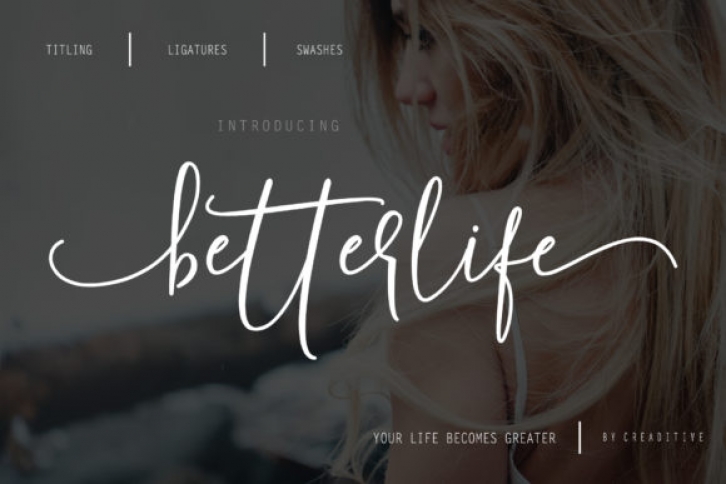
Betterlife is a beautiful script font. It has an elegant style and it will add a sophisticated look to your designs. It is perfect for greeting cards and invitations, logos and handwritten quotes.